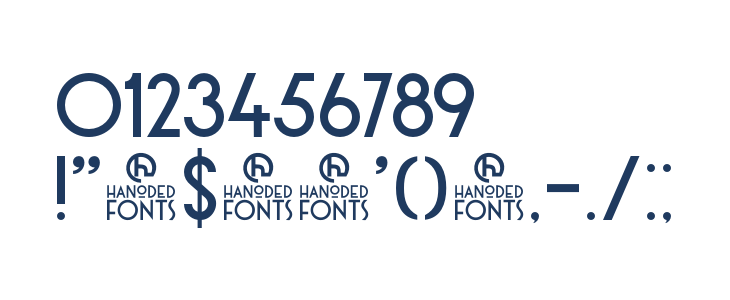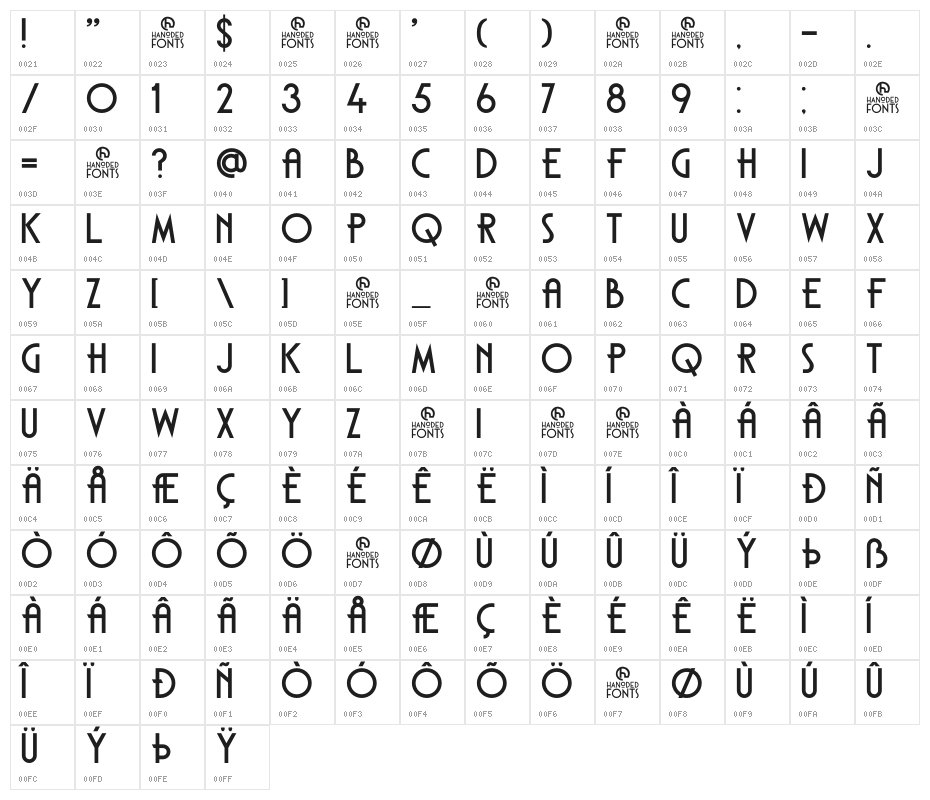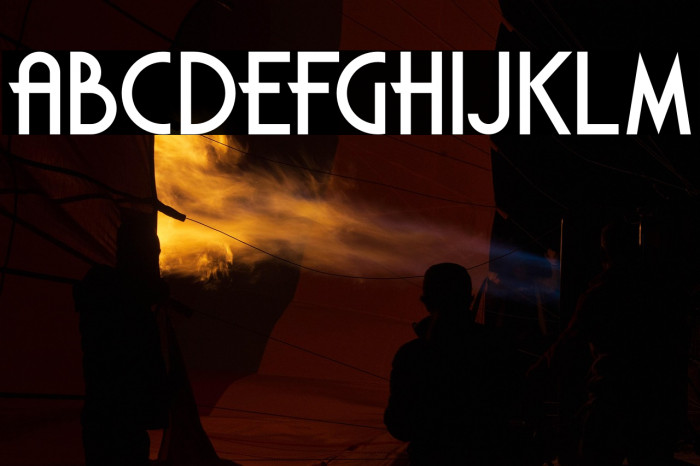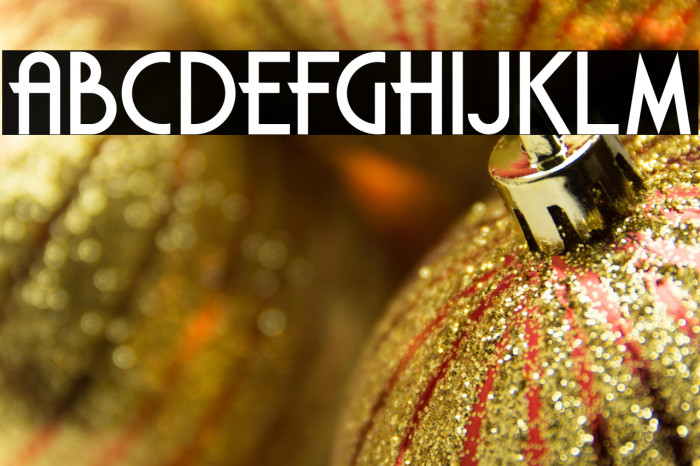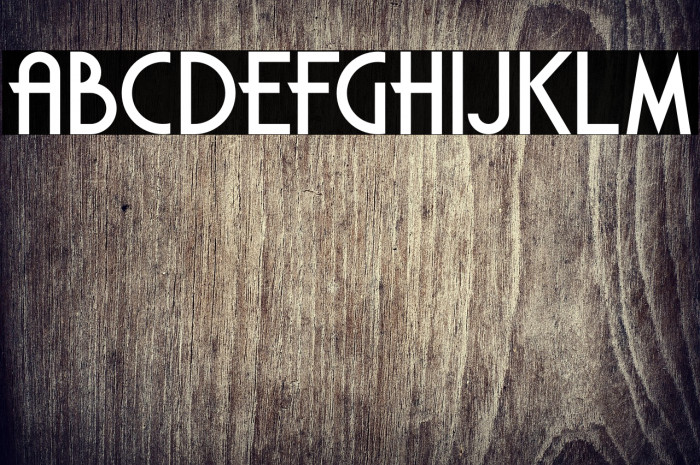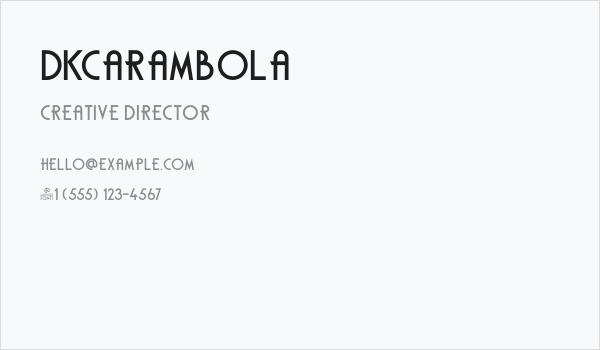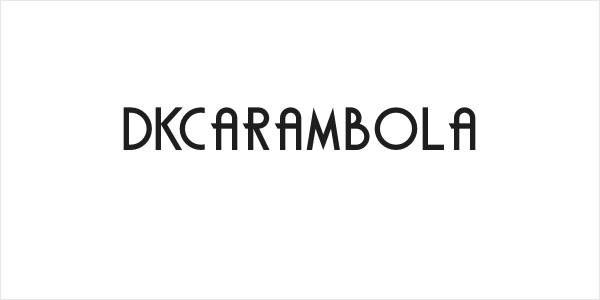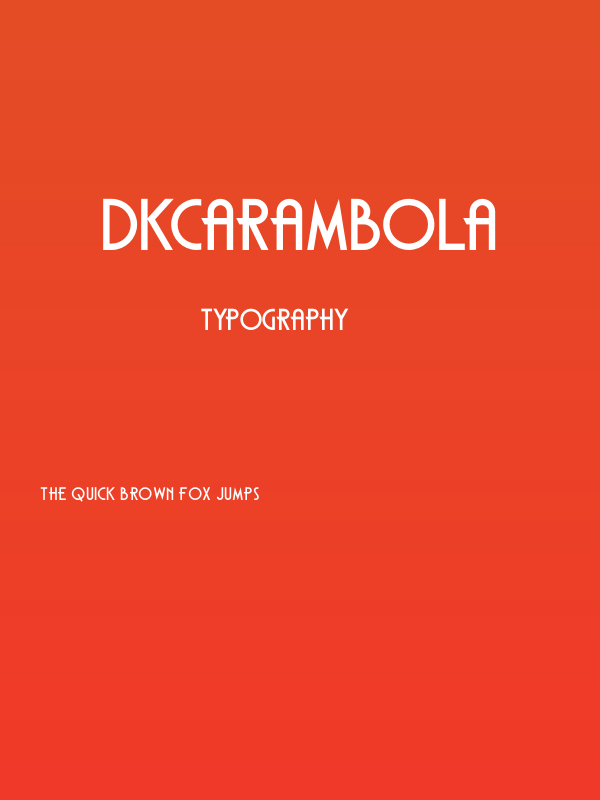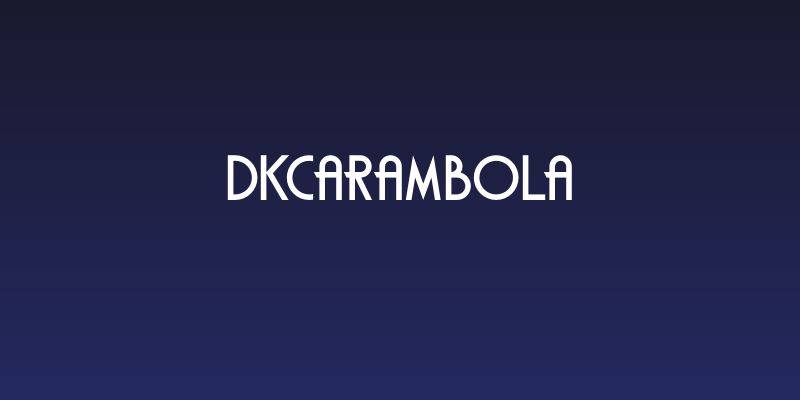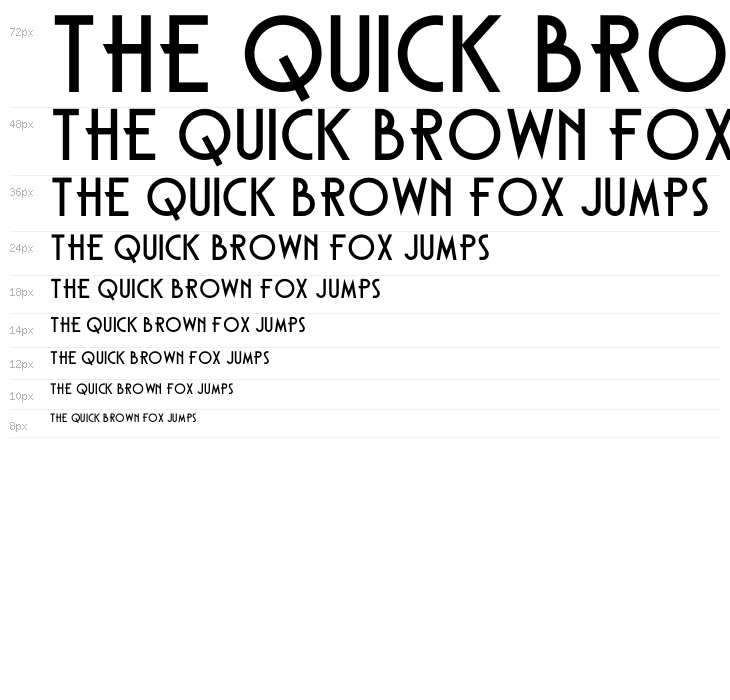
DKCarambola Font
DKCarambola Description
This font features a unique blend of geometric and art deco influences, characterized by its clean lines and sharp angles. The uppercase letters exhibit a strong presence with their bold, angular forms, while the lowercase letters maintain a consistent style with slightly softer curves. The numerals are distinct and easily readable, complementing the overall design. Special characters are well-integrated, maintaining the font's cohesive aesthetic. The font's modern yet vintage appeal makes it versatile for various design applications.
| Overall Style | Modern Vintage |
| Proposed Projects | Ideal for branding, poster design, headlines, and any project requiring a stylish, retro-modern touch. |